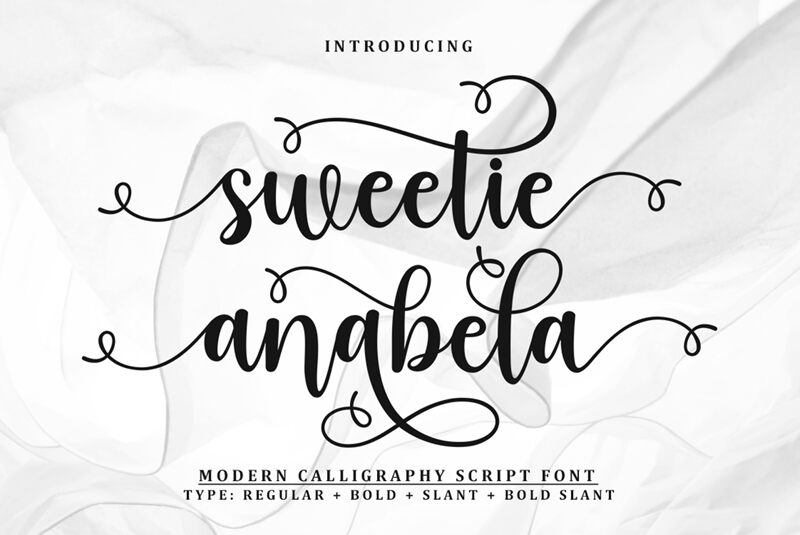
SweetieAnabela
Sweetie Anabela font is designed and presented by Muhammad Nazar to fulfill your prompt typographic needs in a heartbeat. Sweetie Anabela is an elegant handwriting font written in a moderately connected cursive style. The characters have high contrast and are constructed with lovely smooth curves of variable width that grow thinner at the terminals.
Features: Initial, Middle, Top, Bottom & End Swash, and Binding.